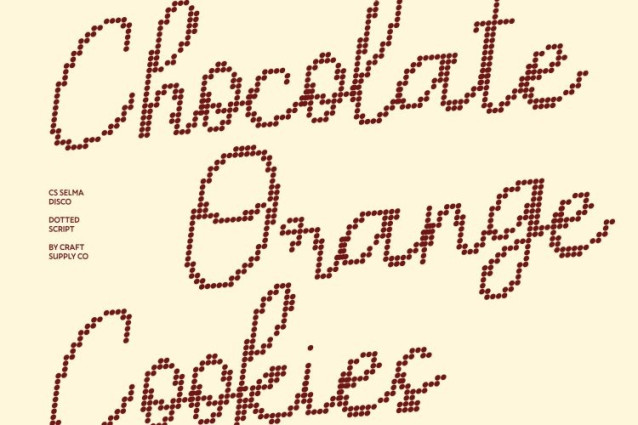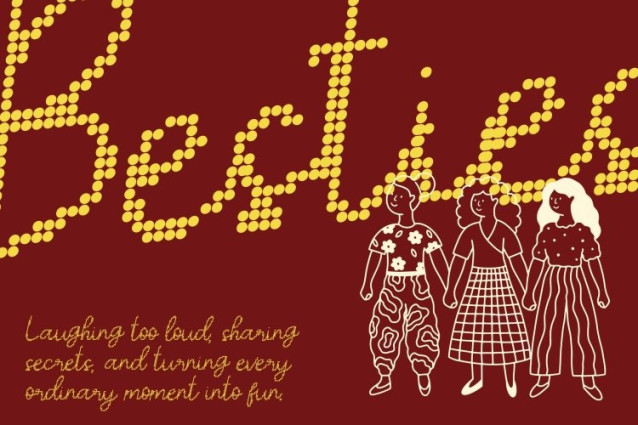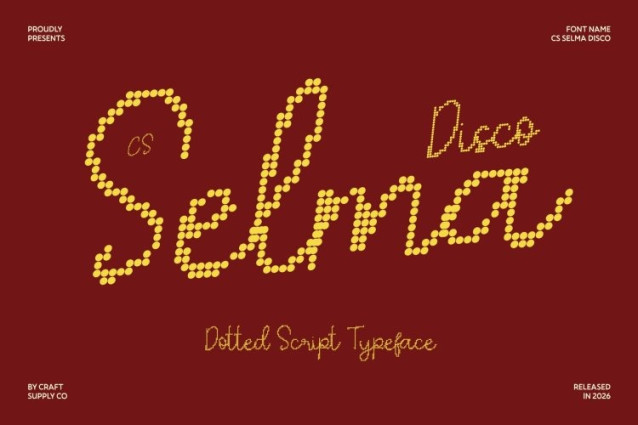
CS Selma Disco Font – This font transforms the refined beauty of the original script into a dot-based display font, combining its graceful curves and flowing strokes with a lively, disco-inspired texture. Each letter is composed of small, evenly spaced dots that preserve the sophistication of the handwriting while adding a cheerful, sparkling personality.
Delicate Flourishes with Vibrant Energy
The dotted detailing accentuates the font’s natural flourishes, giving every curve a sense of rhythm and movement. This playful texture infuses the script with joy and vitality, making it perfect for designs that want both elegance and a touch of celebratory sparkle.
Perfect for Weddings, Fashion, and Luxury Branding
This font shines in wedding invitations, high-end packaging, fashion branding, editorial layouts, and social media designs. Its unique dotted style brings visual interest to headlines, logos, and decorative text, all while maintaining the refined and romantic qualities of the original script.
A Stylish, Cheerful Classic
Blending timeless sophistication with modern playful energy, this is ideal for designers seeking a script font that is elegant, expressive, and full of charm. Its combination of grace and disco-inspired dot texture ensures that every project radiates warmth, personality, and lasting visual impact.